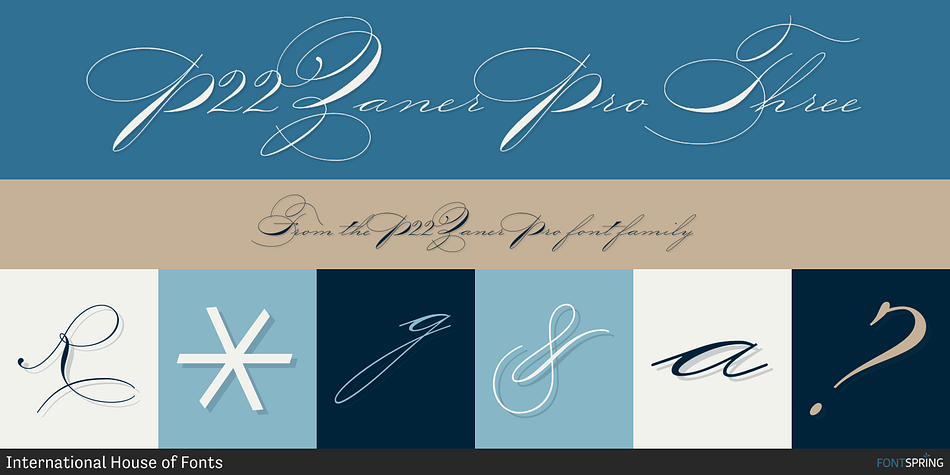
P22 Zaner Pro Three
P22 Zaner Pro is a script font family. This typeface has twelve styles and was published by International House of Fonts.
P22 Zaner is based on ornamental penmanship as taught by Charles Paxton Zaner at his art college at the turn of the 20th century. The Zaner font set includes four unique fonts that complement the other fonts in the set. Each font is available in PostScript and TrueType formats as well as OpenType which offers even more characters, options and overall functionality.
Style Three